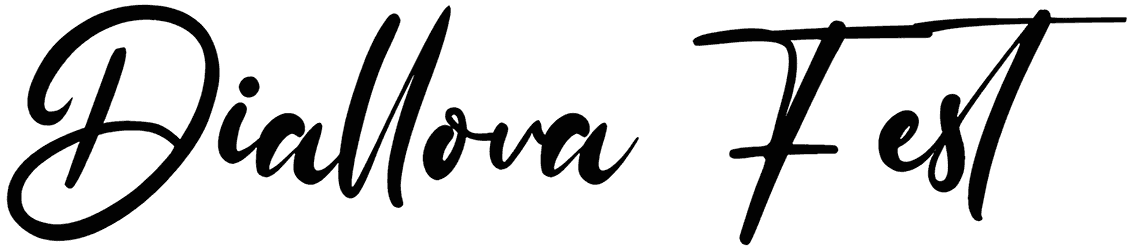
Diallova Fest Font
Rough, hearty, and warm are the adjectives that come to mind to describe Diallova Fest at first glance. This handwritten font is an outstanding choice for stylish logos, packaging, wedding cards, and quotes due to its modern, minimalist design of unique curves and cuts.
The subtle features and backlines in creating this wedding font have affected its readability to some extent, but it still maintains the power of this font to beautify your designs.